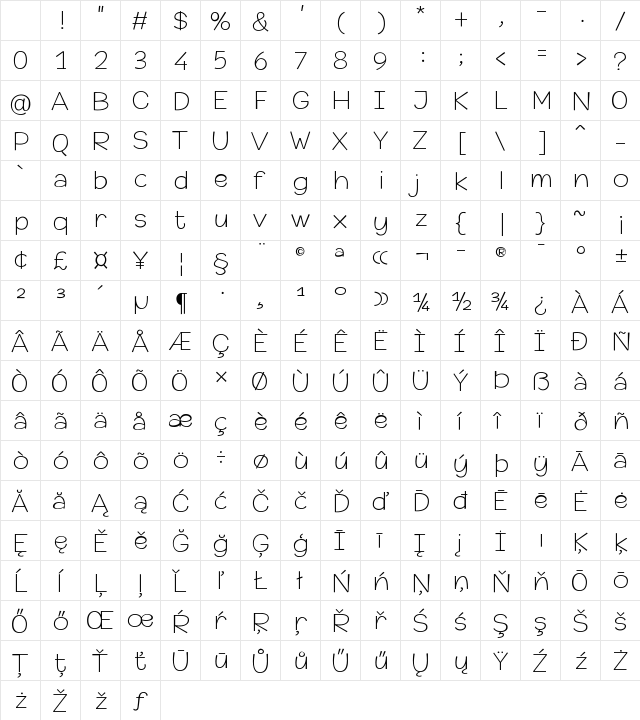
Complete Champigna Thin glyph index. Displaying only characters natively supported by Champigna Thin font.
Champigna is a composed and adaptable typeface that performs quietly and consistently across a wide range of design contexts. Its slender proportions lend an understated elegance to any composition.